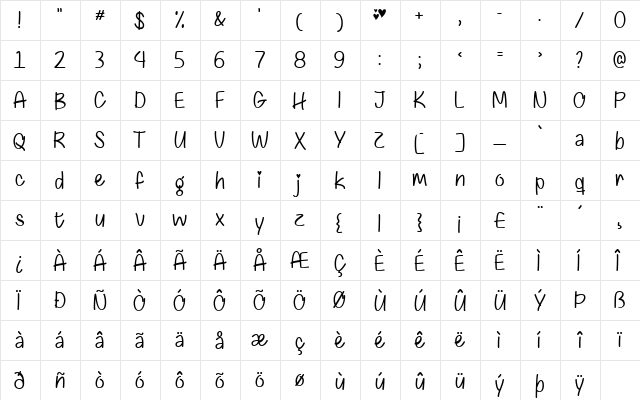
Chasing Hearts Regular
Design Context for Chasing Hearts Typeface
Chasing Hearts is a composed and adaptable typeface that performs quietly and consistently across a wide range of design contexts.
Pro Tip: Use Chasing Hearts in both headline and body roles to test its range before committing to a single application.